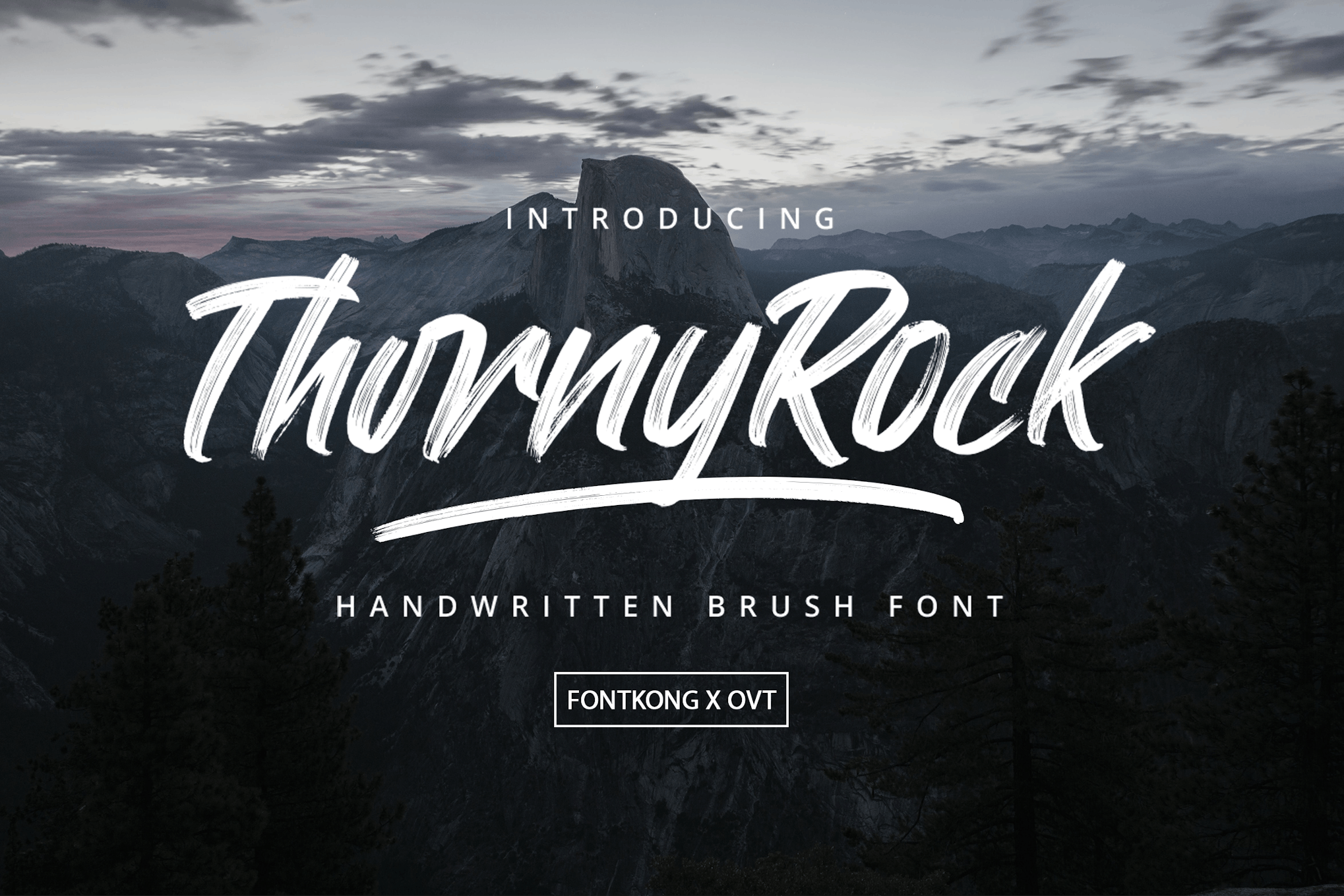
Thorny Rock - Handwritten Brush Font
Thorny Rock - Handwritten Brush Font dominates rugged outdoor adventure branding, rock climbing gear packaging, extreme sports event graphics, wilderness survival materials, hardcore metal band logos, rebellious tattoo studio signage, desert expedition campaigns, mountaineering club identities, adventure racing promotions, rough terrain vehicle branding, extreme weather gear labels, and adrenaline-fueled marketing where thorny resilience and rock-solid determination create unbreakable brand connections.
This formidable typeface generates excitement through its perfect embodiment of untamed wilderness and rock-hard determination that creates typography forged in nature's harshest environments. Thorny Rock - Handwritten Brush Font captures the essence of extreme survival with its ruggedly handwritten letterforms that suggest the scratchy marks left by thorns and the weathered texture of ancient rock formations. The font's authentic design approach incorporates natural weathering effects and organic brush strokes that mirror the raw experience of navigating through thorny landscapes and scaling unforgiving rocky terrain. Its distinctive character reflects the grit, perseverance, and uncompromising strength that define authentic extreme adventure culture.
The Thorny Rock - Handwritten Brush Font family includes multiple extreme variations such as Regular, Bold, Light, Weathered, and Hardcore versions, each maintaining the font's characteristic rugged authenticity while offering different levels of extreme impact. The collection features thorny texture effects, rock-inspired distortions, and wilderness brush strokes that enhance its outdoor credibility. Additional elements include mountain symbols, climbing gear ornaments, survival decorative borders, and extreme sports flourishes that reinforce the font's connection to hardcore outdoor adventure and wilderness survival.
Whether you're designing extreme sports merchandise, creating adventure gear branding, developing wilderness survival materials, or crafting hardcore outdoor campaigns, Thorny Rock - Handwritten Brush Font delivers unmatched rugged authenticity. Its ability to convey toughness, survival instincts, and wilderness mastery makes it invaluable for adventure brands seeking typography that genuinely withstands the test of extreme conditions. The font's thorny presence ensures your designs will communicate the unbreakable strength and hardcore determination that define exceptional extreme adventure communications and wilderness survival experiences.